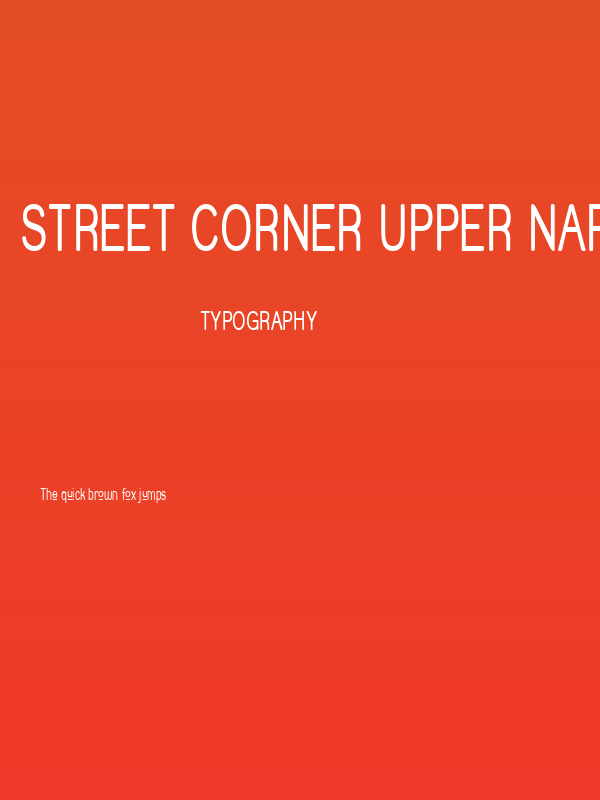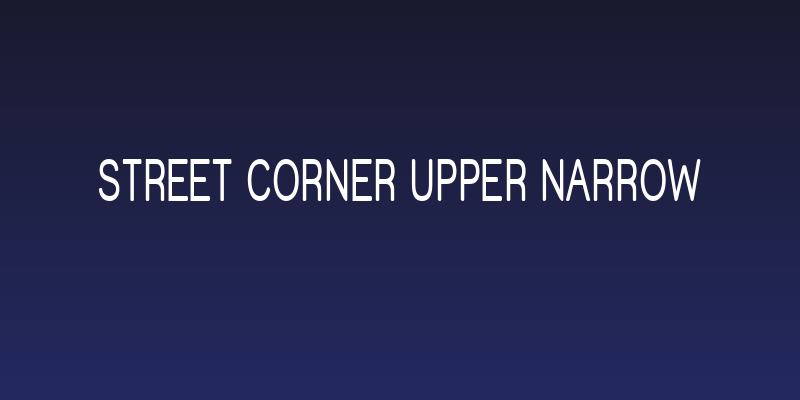
Street Corner Upper Narrow Font
Street Corner Upper Narrow Description
This font features a modern, geometric sans-serif style with clean lines and a uniform stroke width. The characters are narrow and elongated, giving a sleek and contemporary appearance. The uppercase letters are bold and prominent, while the lowercase letters maintain a consistent height, enhancing readability. The numerals are clear and distinct, matching the overall aesthetic. Special characters are well-integrated, maintaining the font's cohesive look. This font is versatile, suitable for various design applications where a modern and professional appearance is desired.
| Proposed Projects | Ideal for branding, signage, editorial design, and digital interfaces. |